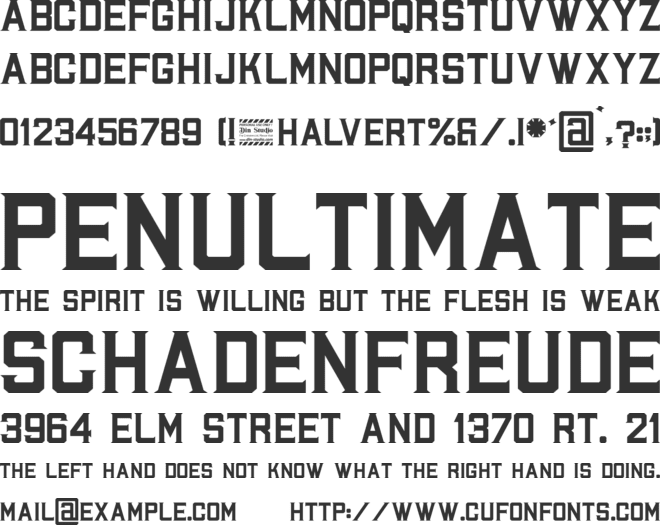
Halvert is an amazing e-sport font. It is suitable for any project like branding, merchandise, advertising, book cover, cards, t-shirt print and others.
• Numerals and Punctuations